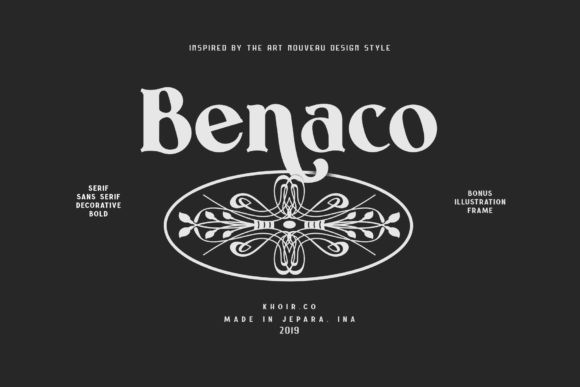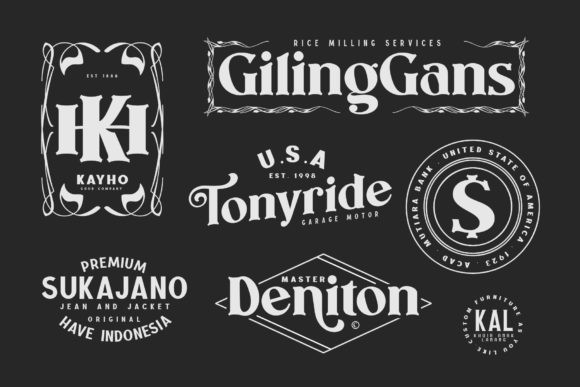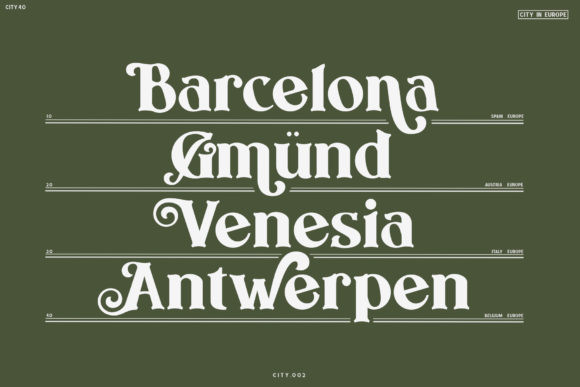
Benaco Font
Inspired by the iconic Art Nouveau designs, Benaco is a stunning serif display font that can be applied to both vintage and contemporary design projects.